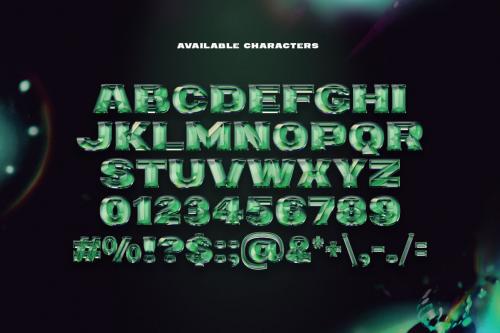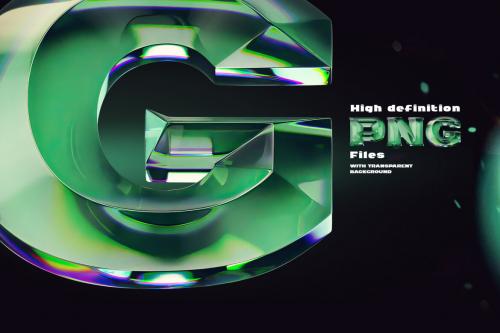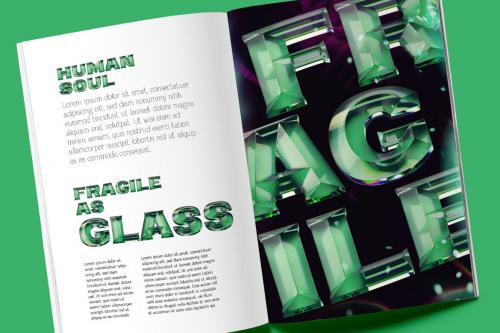
Deeezy - Green Eyes - Bitmap Color Font
Hello! Presenting a glossy font set - Green Eyes. It's a 3d rendered typeface made sparkling green glass with colorful dispersion effect. First of all it's a color bitmap OpenType-SVG font that can be used as a usual OTF font. Also a set of full resolution PNG files with transparent background is included. Consider that only English language and basic punctuation is supported, please check out the screenshot with all available characters.